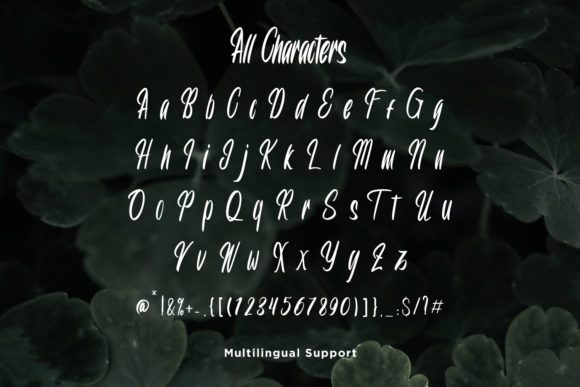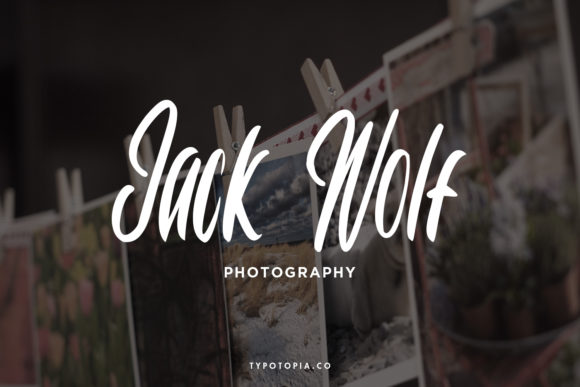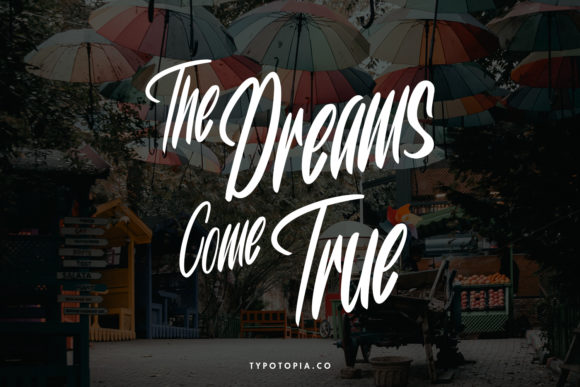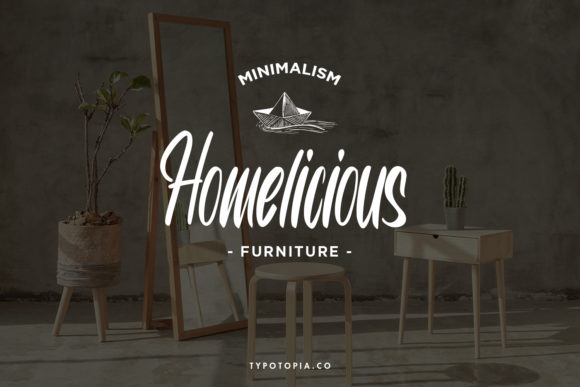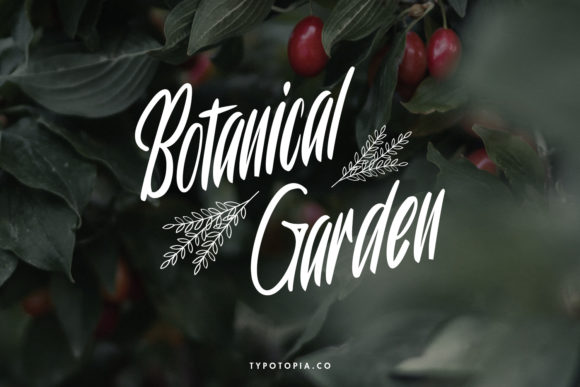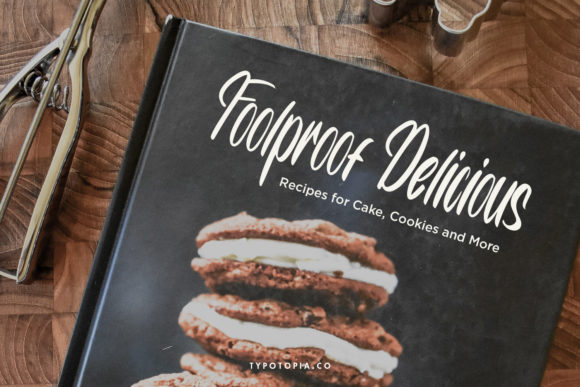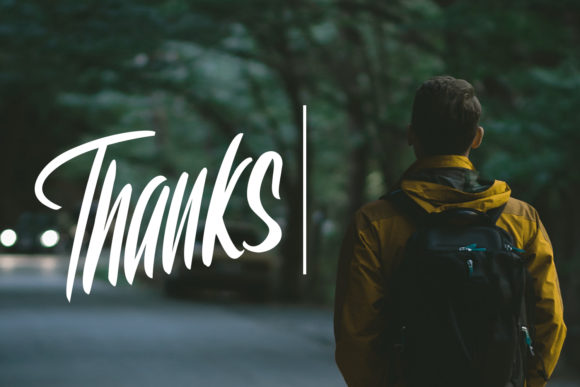
Rouweth Font
About Rouweth Font
Rouweth is a bold brushed handwritten font. Flowing and stylish, this font will become your top choice in no time. Add it confidently to your projects, and you won’t be disappointed.